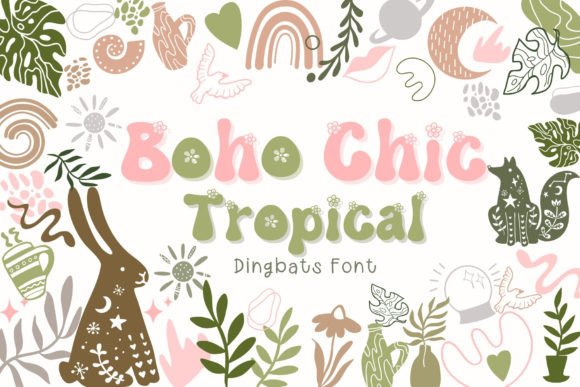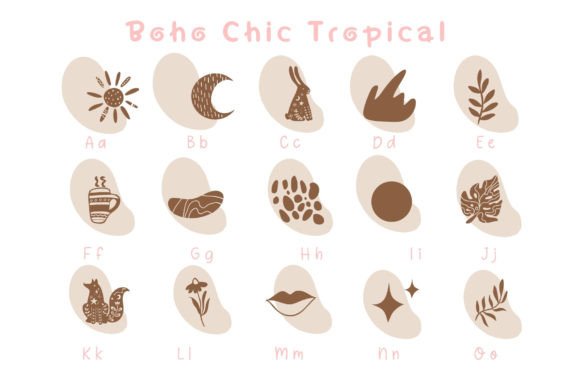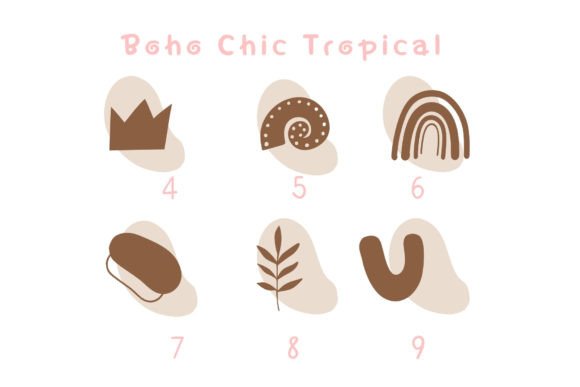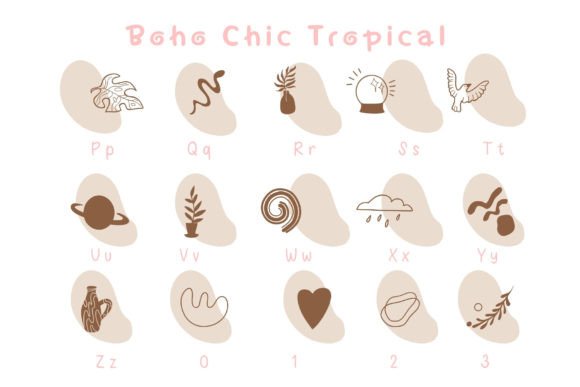
Boho Chic Tropical Font
About the Boho Chic Tropical Font
Unleash your creativity with Boho Chic Tropical Font, a versatile font perfect for a wide range of applications. Boho Chic Tropical is a useful and delicately designed dingbats font. Add it confidently to your projects, and you will love the results.
Boho Chic Tropical excels in projects requiring a light, playful touch. Ideal applications include branding for small businesses focusing on handcrafted goods, tropical-themed products, or lifestyle brands with a bohemian aesthetic. It works beautifully in short headlines, social media graphics, and packaging design, adding a touch of whimsical charm. Avoid using it for large amounts of body text or in user interfaces where readability is paramount; its decorative nature compromises legibility in extended passages.
Pairing it with a clean sans-serif like Montserrat or a modern serif such as Playfair Display creates a balanced and sophisticated look. For a more playful feel, consider pairing it with a handwritten script font, but ensure sufficient contrast for optimal readability. A geometric sans-serif would offer a stark counterpoint, highlighting the organic quality of Boho Chic Tropical.
The font’s overall personality is undeniably cheerful and relaxed, conveying a sense of carefree summer vibes and handmade artistry. Its delicate details prevent it from feeling overwhelming, ensuring that the playful nature of the font remains subtle and sophisticated.
Boho Chic Tropical Font Usage Examples
Boho Chic Tropical Font Example